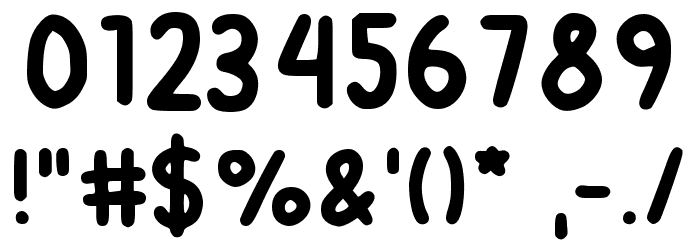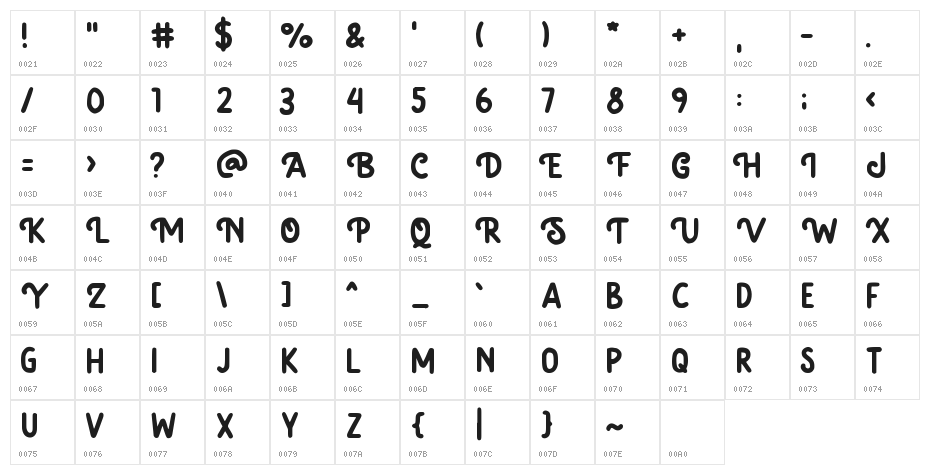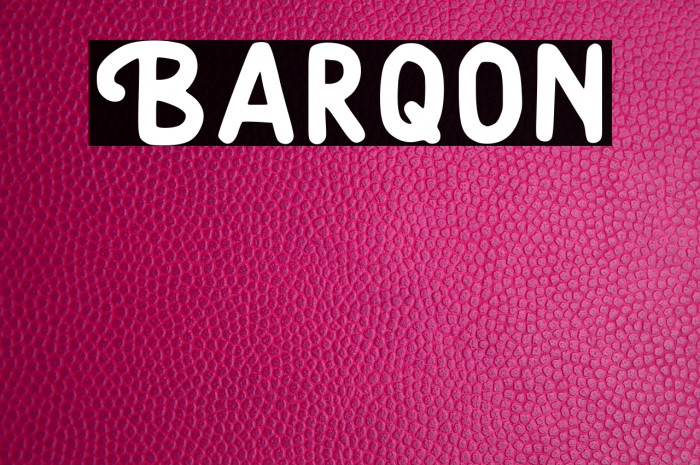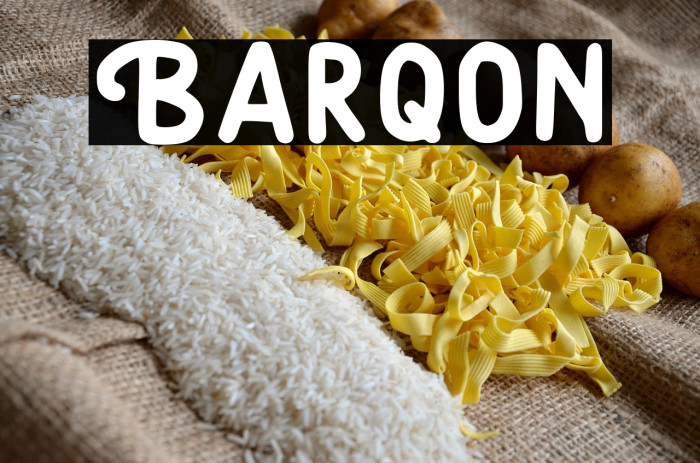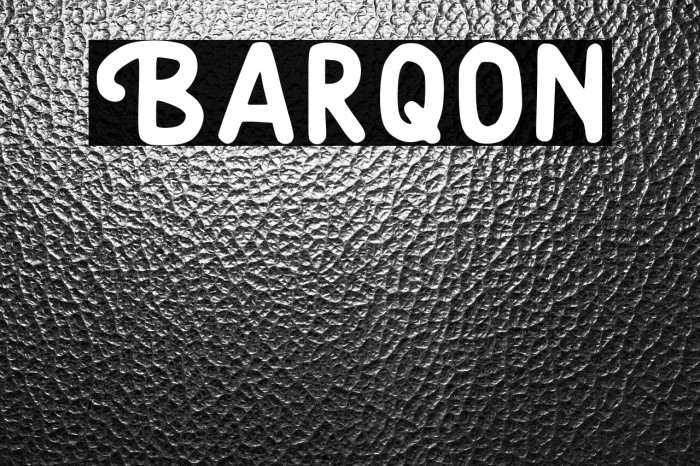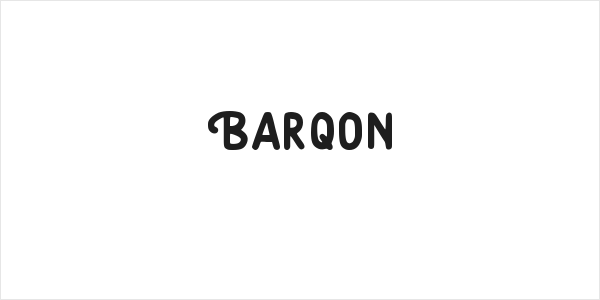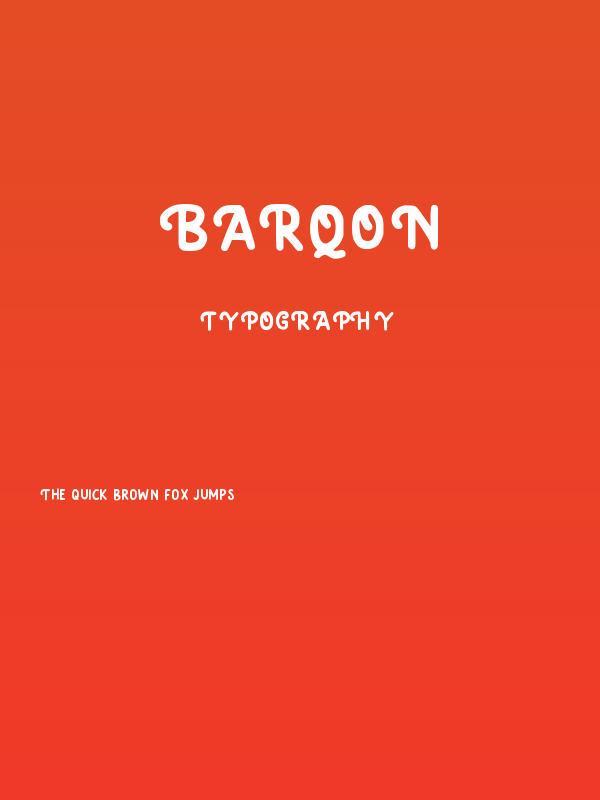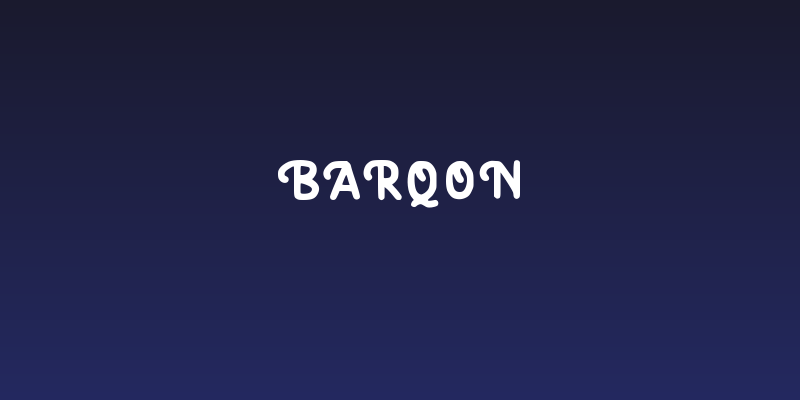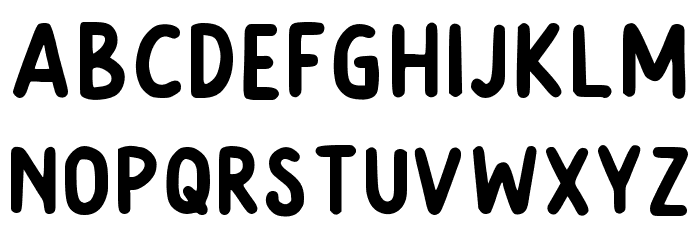
Barqon Font
Barqon Description
This playful and rounded font exudes a friendly and approachable vibe. The characters are bold with a consistent stroke width, giving them a uniform appearance. The rounded edges soften the overall look, making it suitable for casual and informal contexts. The uppercase and lowercase letters maintain a consistent style, with the lowercase letters slightly smaller in size. The numerals are clear and easy to read, matching the style of the alphabet. Special characters are included, maintaining the same playful aesthetic. This font is ideal for projects that require a touch of whimsy and approachability.
| Proposed Projects | Ideal for children's books, playful branding, casual invitations, and social media graphics. |